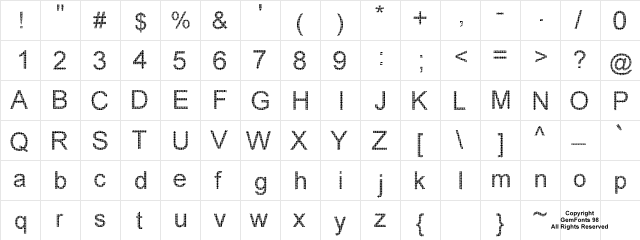
Woven Brickwork Regular
Design Context for Woven Brickwork Typeface
Woven Brickwork takes a measured approach to typography — its balanced proportions and neutral character make it a reliable workhorse for both digital and print work.